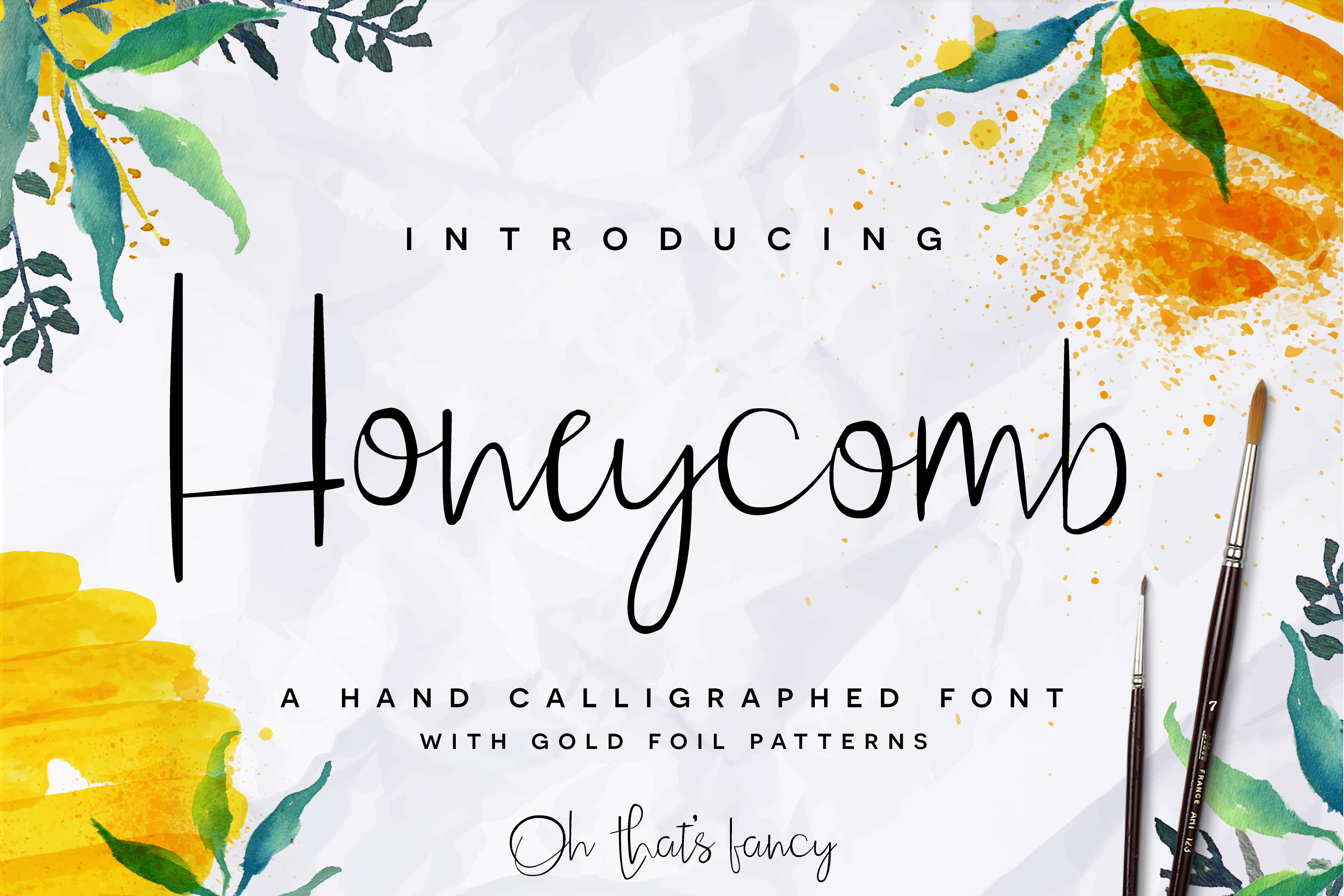
Honeycomb Font + Bonus
Honeycomb is a fun & flirty script font with some sweet bonuses! It’s fat-to-thin brush strokes and imperfect baseline give it a fun and stylish aesthetic perfect for typography, branding, logo design, invitations, and prints.
Use it in ink, watercolor, or gold foil based designs or on its own as a whimsical handcrafted masterpiece!
• 7 Bonus Ligatures
• 26 Stylistic Alternates